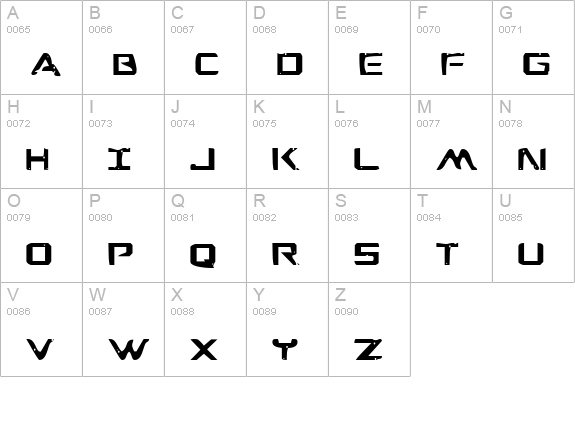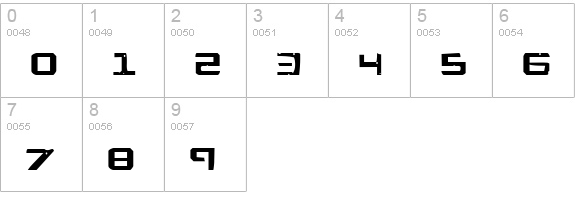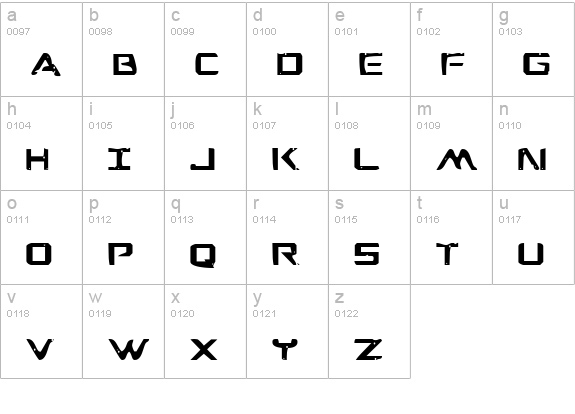
War Eagle Font Details
War Eagle font is a stunning display typeface that exudes strength and elegance. Its bold and distinctive letterforms make it perfect for headlines, logos, and other design projects that require a touch of sophistication. The sharp edges and unique styling of War Eagle give it a modern and edgy feel that is sure to make your designs stand out. What's even better is that War Eagle font is available for free download at FontsMarket.com. This means you can easily add this beautiful typeface to your font library without any cost. Whether you're a designer looking to add a new font to your collection or a business owner in need of a fresh look for your branding, War Eagle font is a fantastic choice that won't break the bank. Download it today and start creating eye-catching designs that truly make a statement.